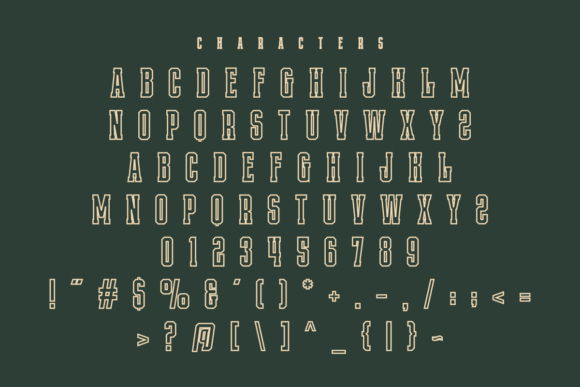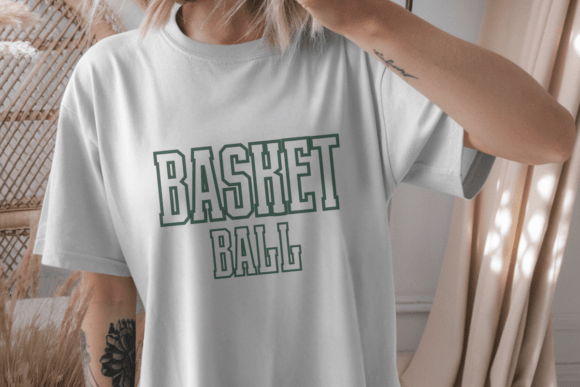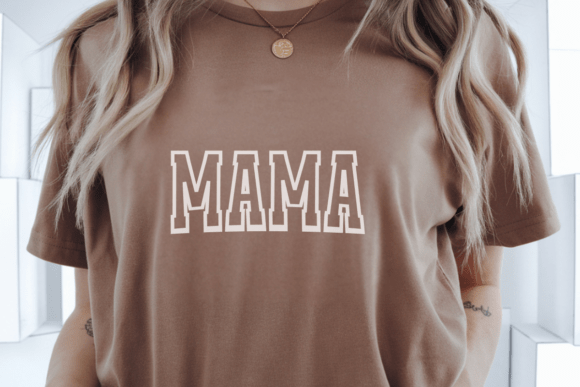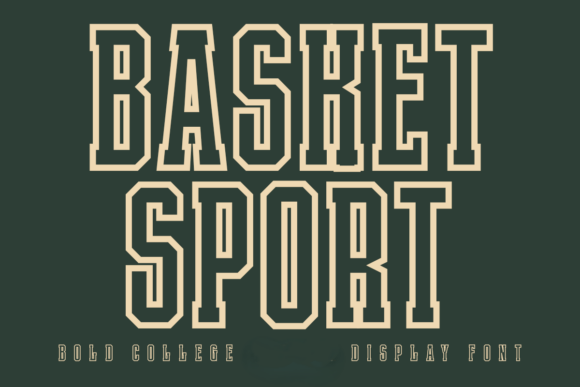
Introduction to Basket Sport Outline Font
Basket Sport is a bold college display font meticulously designed to bring a powerful, athletic aesthetic to your creative projects.
This typeface features a strong, blocky structure with classic collegiate slab-serif details, making it the ultimate choice for graphic designers, crafters, and Print on Demand (POD) sellers It is perfectly suited for creating high-impact t-shirt designs, varsity-style team logos, sports jerseys, and spirited fan merchandise.
Key Features of Basket Sport Outline Font
Why Choose Basket Sport Outline Font?
Basket Sport Outline Font offers exceptional quality and versatility, making it a valuable addition to your design toolkit. Whether you’re creating for personal projects or commercial use, Basket Sport Outline Font delivers professional results.